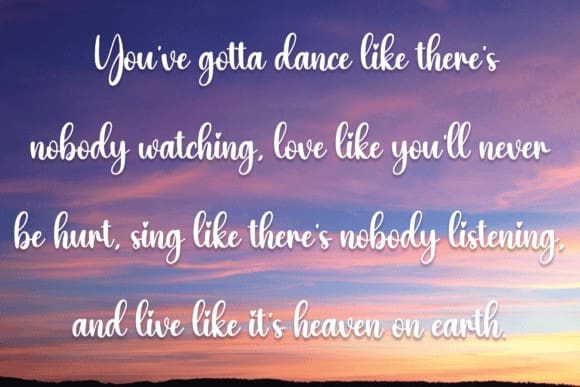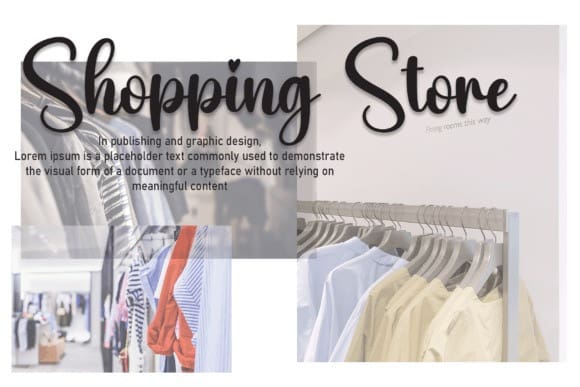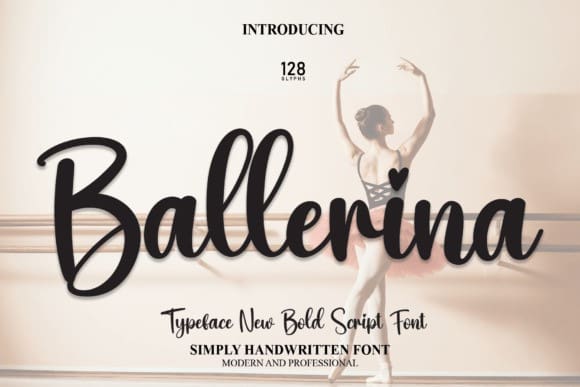
Ballerina Script Font
Ballerina Script Font is a beautiful handwritten font specially crafted to give you an extraordinary experience. It is perfect for wall displays, wedding invitations, social media posts, logos, advertisements, product packaging, product designs, labels, photography, watermarks, invitations, stationery, and any project that requires a beautiful handwritten touch.